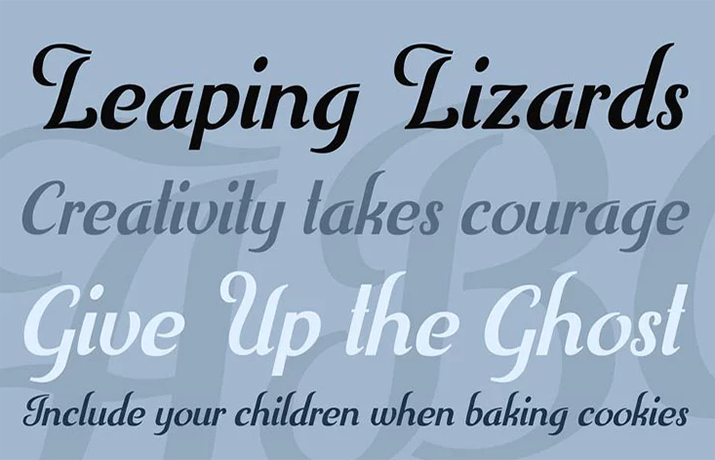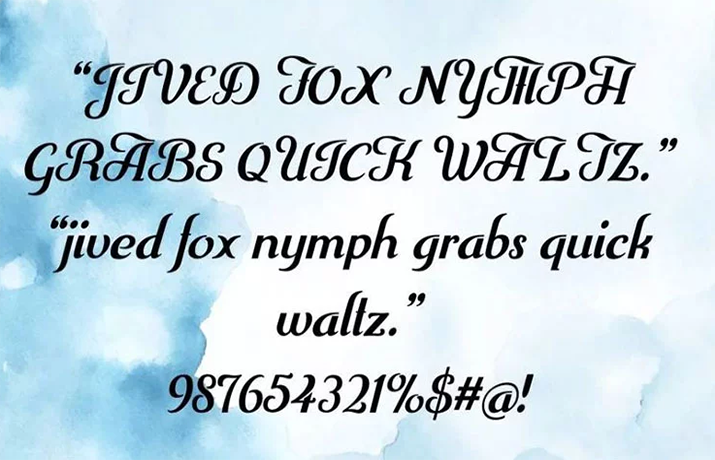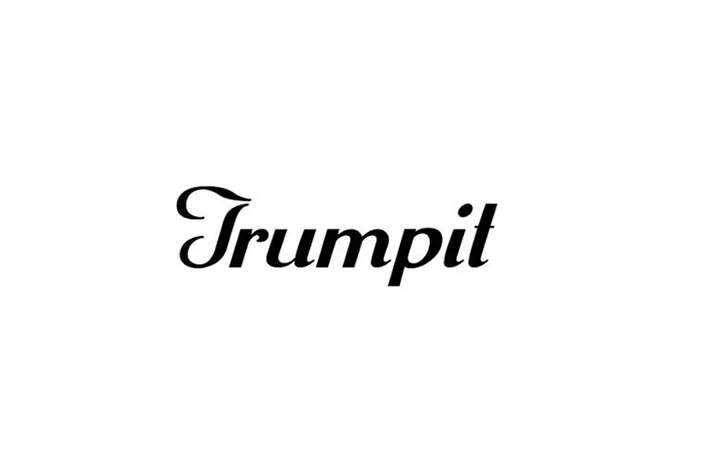
Trumpit Font is an elegant script typeface that comes with a classic calligraphic modern twist. It was made and published by Typesgal.
All textures have been designed with bold strokes that combine the classic calligraphy style with modern twists. It has a proper baseline with an italic touch that adds extra creativity to the design.
Its bold hand-drawn and organic feel makes it an excellent choice for a wide range of purposes such as social media posters, headers, titles, banners, flyers, logos, branding, and more.
| Style: | Script, Various, Display |
- Its lovely swashes and sophisticated elegance go well with a variety of patterns, like invitations, branding, birthday cards, wedding cards, shopping bags, signatures, covers, posters, social media posts, product designs, ladies’ shirt designing, brochure layouts, book covers, banner ads, birthday cards, fashion industry, branding, product packaging, cards, brochures, signage, mug printing, Instagram quotes, etc.